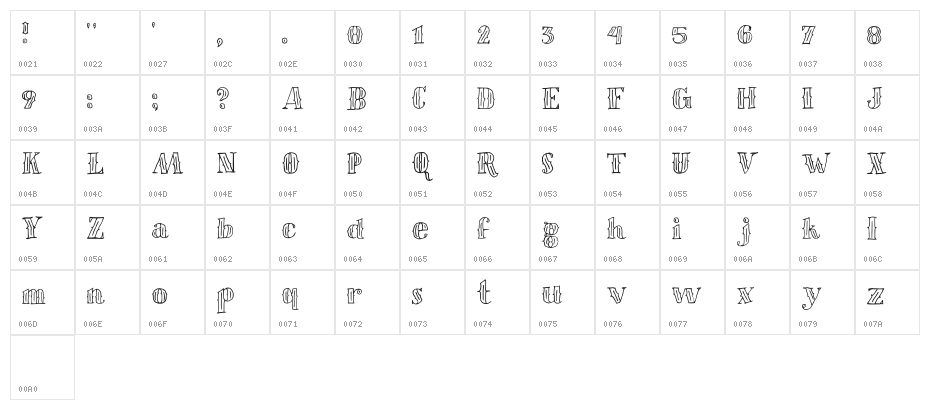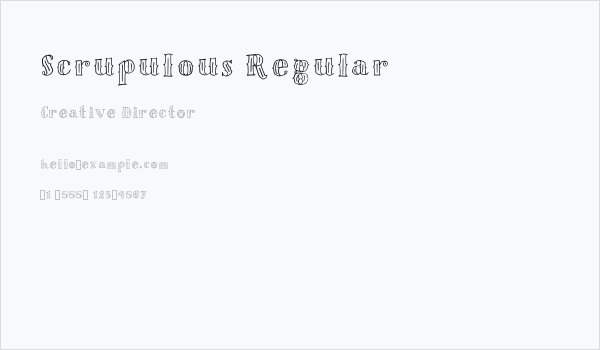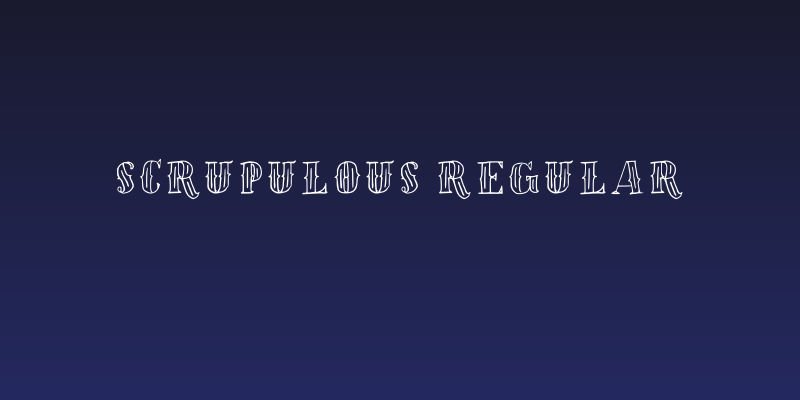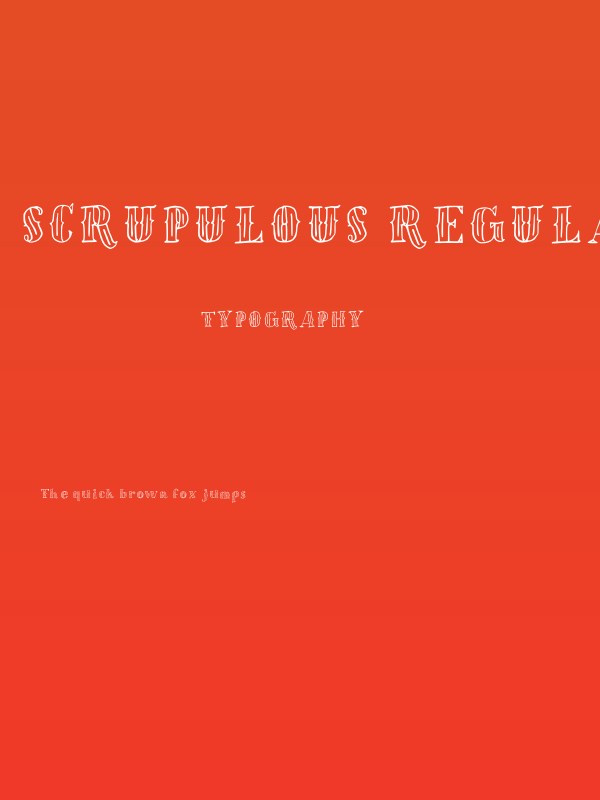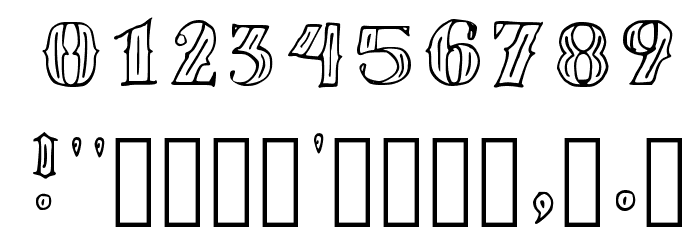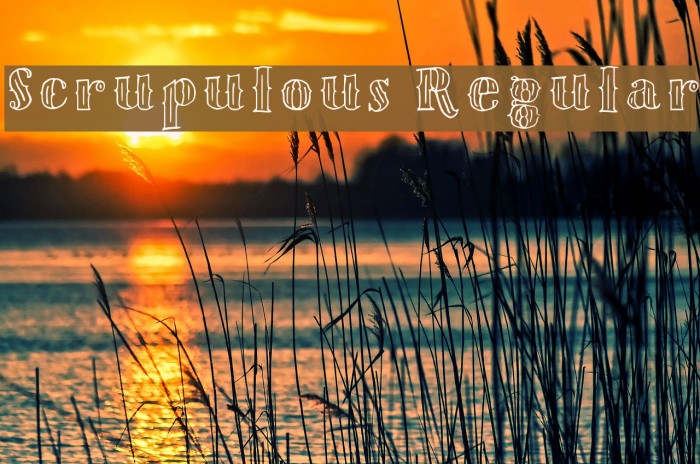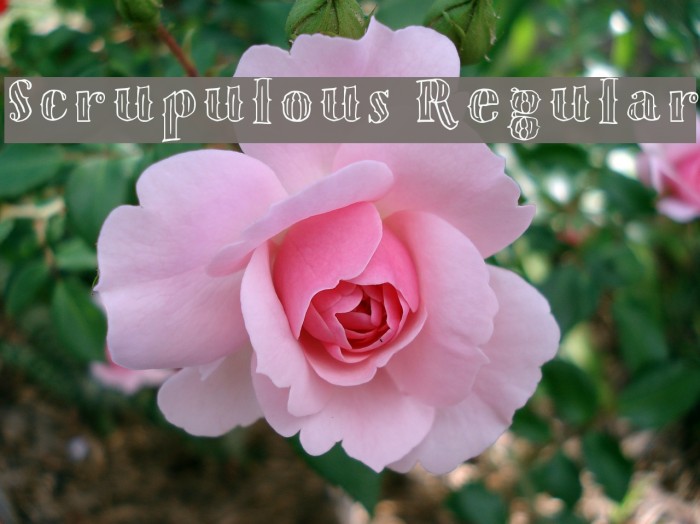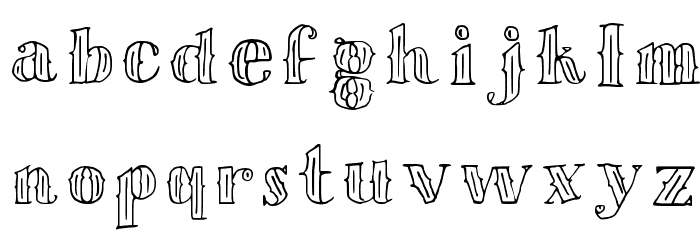
Scrupulous Regular Font
Scrupulous Regular Description
This font features a unique and decorative style with a vintage flair. Each character is outlined with a bold, shadow-like effect, giving it a three-dimensional appearance. The uppercase letters are particularly ornate, with intricate detailing that adds a sense of elegance and sophistication. The lowercase letters maintain a similar style, though slightly less embellished, ensuring readability. The numbers and special characters follow the same design principles, making them cohesive with the alphabet. This font is ideal for projects that require a touch of classic charm and artistic flair.
| Overall Style | Vintage, Decorative |
| Use Case | Headlines, Logos, Decorative text |
| Proposed Projects | Ideal for vintage-themed posters, book covers, branding, and decorative invitations. |
| Author | Fonts by Måns Grebäck |